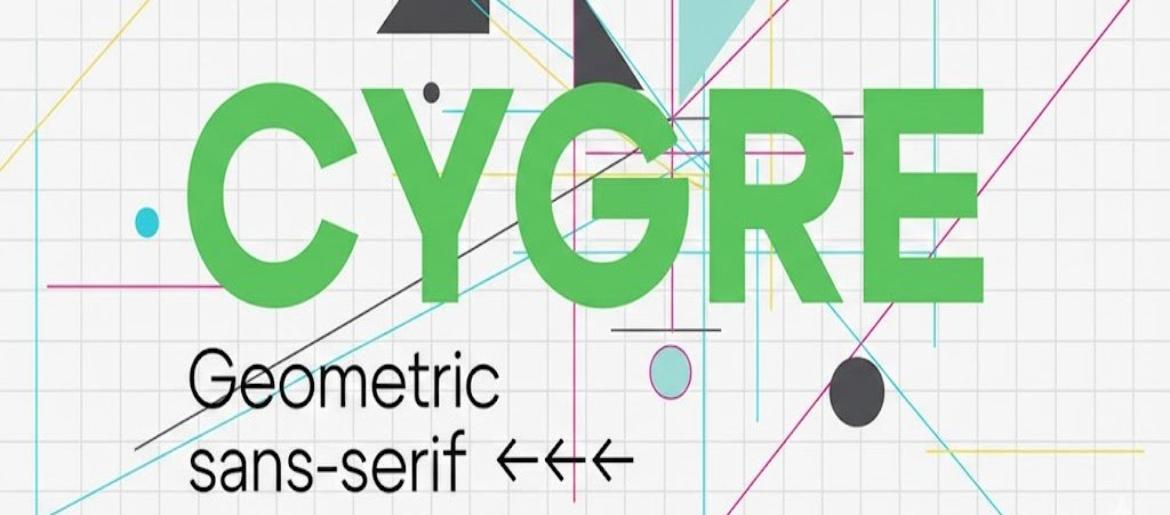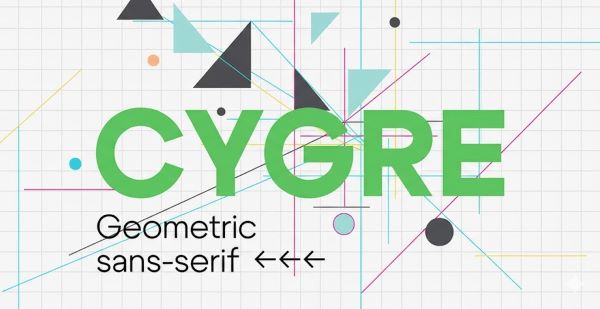
Cygre Font
Cygre Font is a modern sans serif typeface known for its clean geometric construction and balanced readability. It is suitable for branding, editorial layouts, user interfaces, and digital design projects that require a sleek and contemporary appearance. Its versatile styling and professional tone make it a strong addition to high-quality design resources and curated free fonts collections.
➤ Font Name: Cygre
➤ Designer: RandomMaerks
➤ Style: Sans Serif